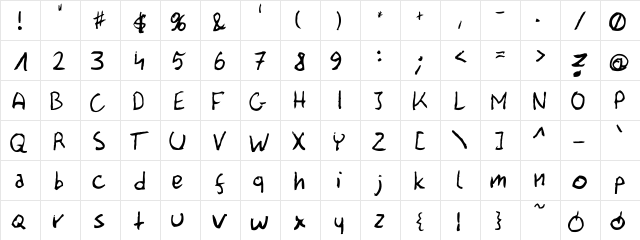
Maczo - pismo Maczo - pismo
Design Context for Maczo - pismo Typeface
Maczo - pismo is a composed and adaptable typeface that performs quietly and consistently across a wide range of design contexts.